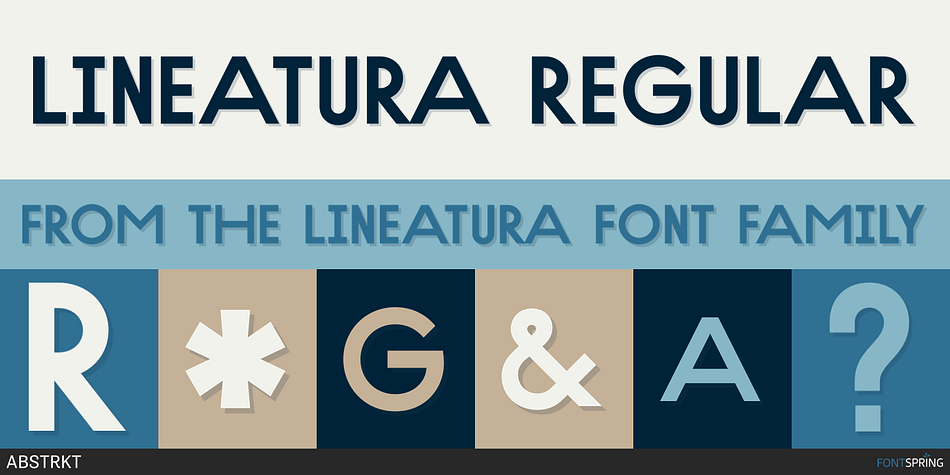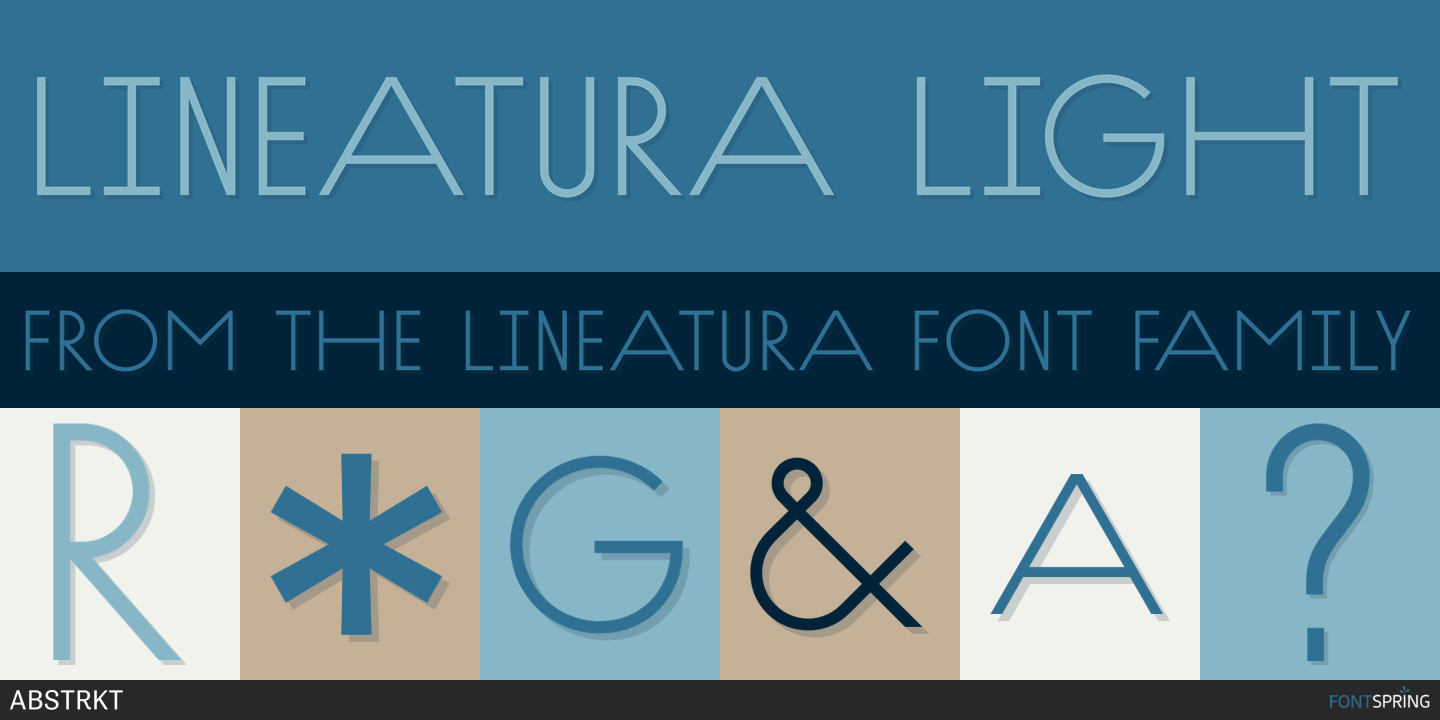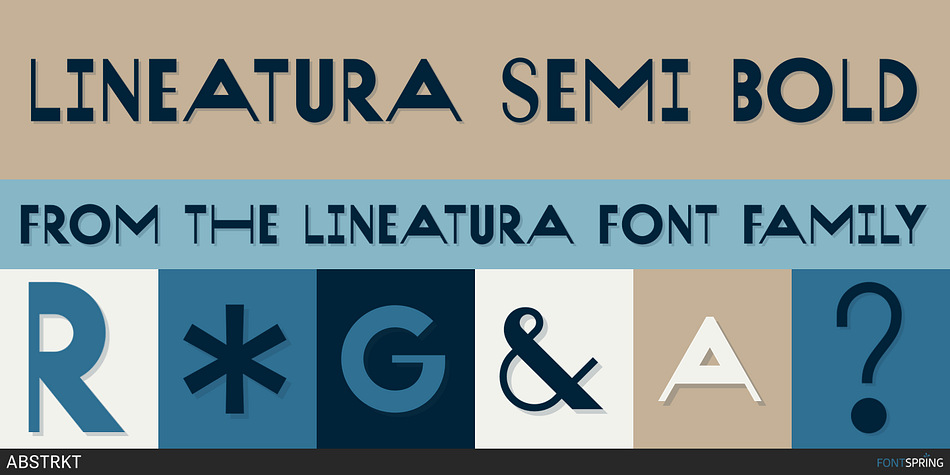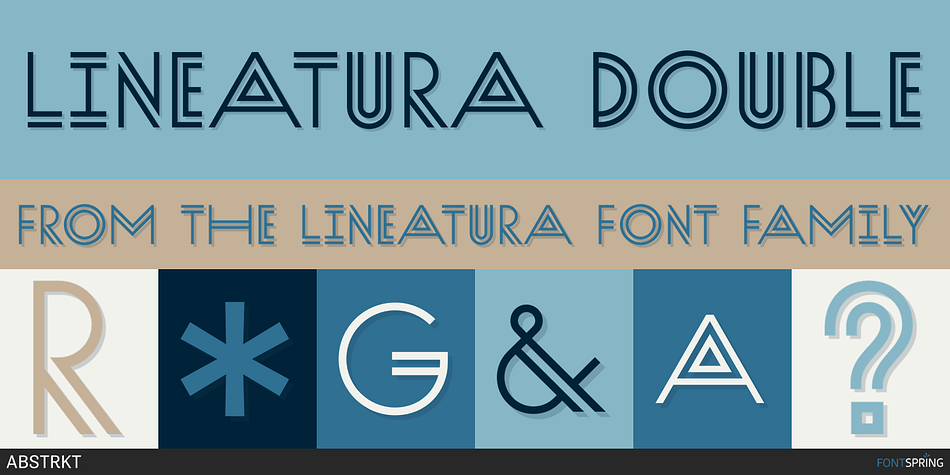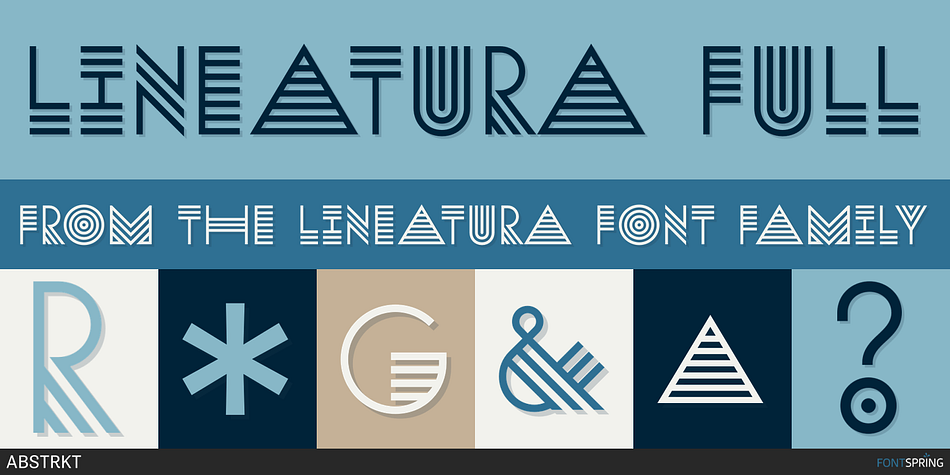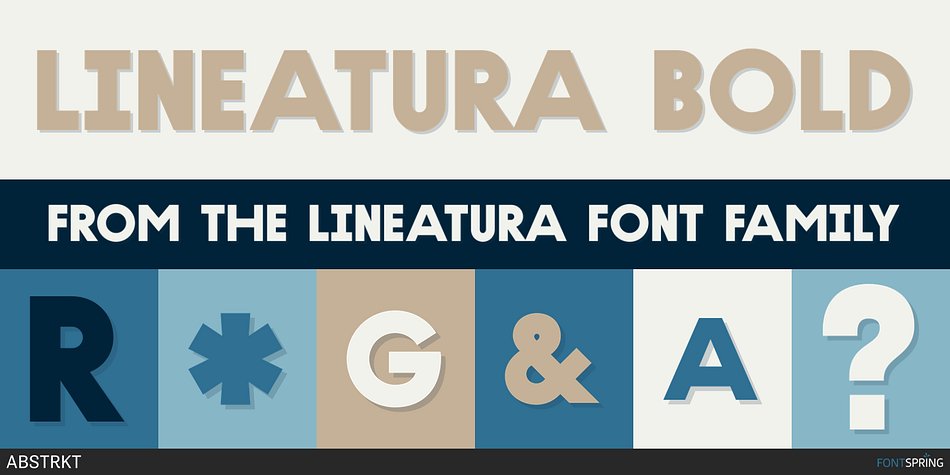
Designed by Roman Gornitsky, Lineatura is a art deco font family. This typeface has six styles and was published by ABSTRKT.
Lineatura is a simplistic sans serif caps only typeface with dynamic character width. All its styles are based around the same skeleton.